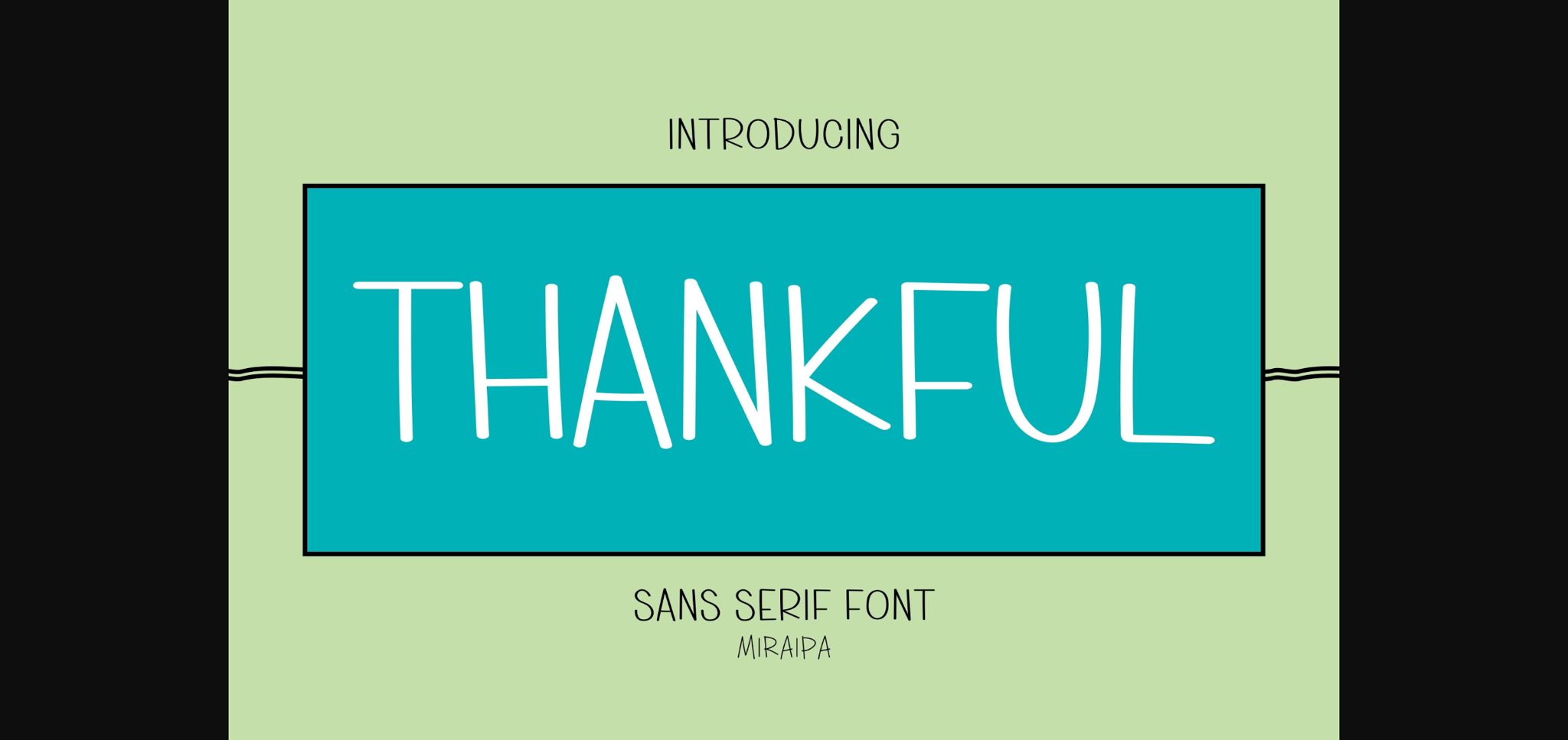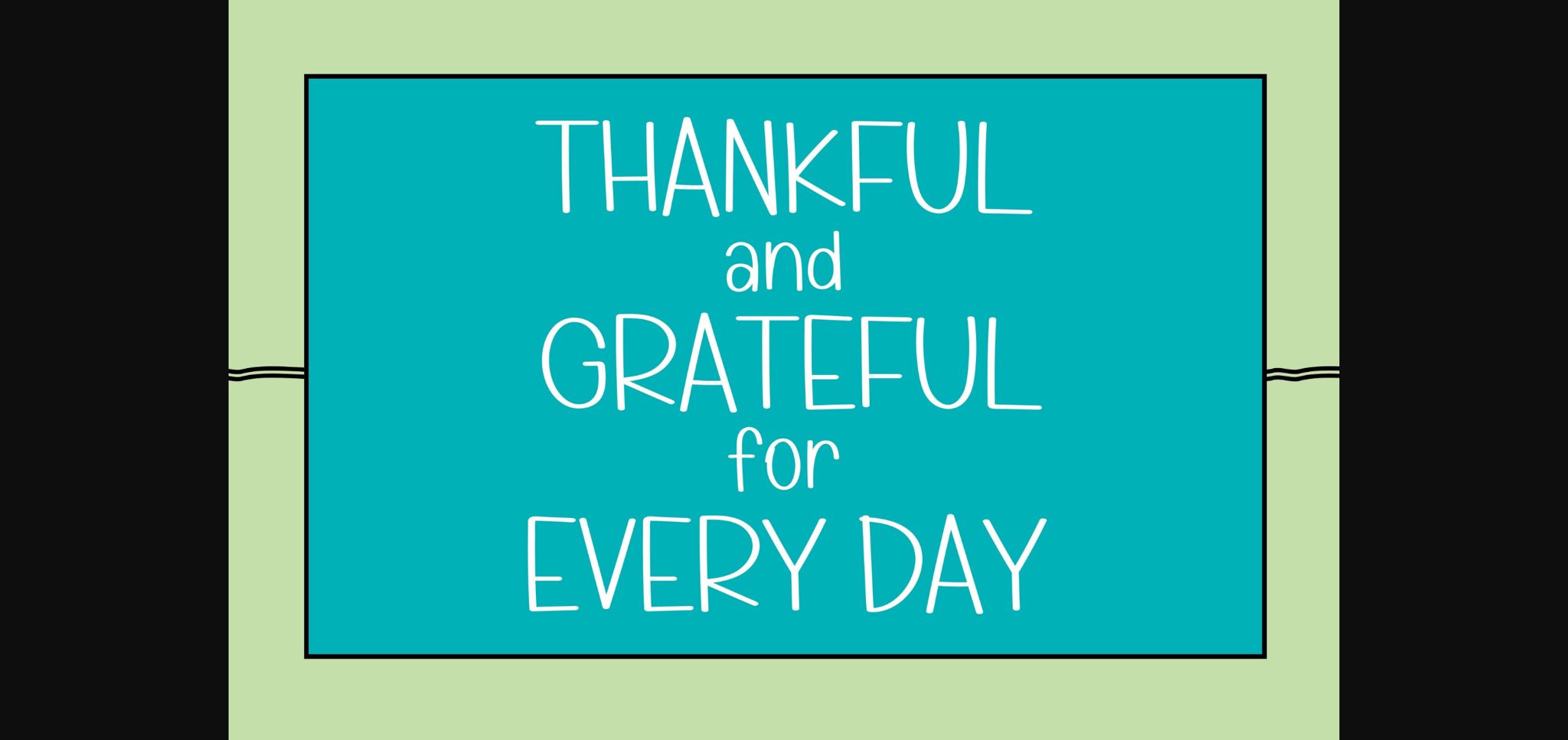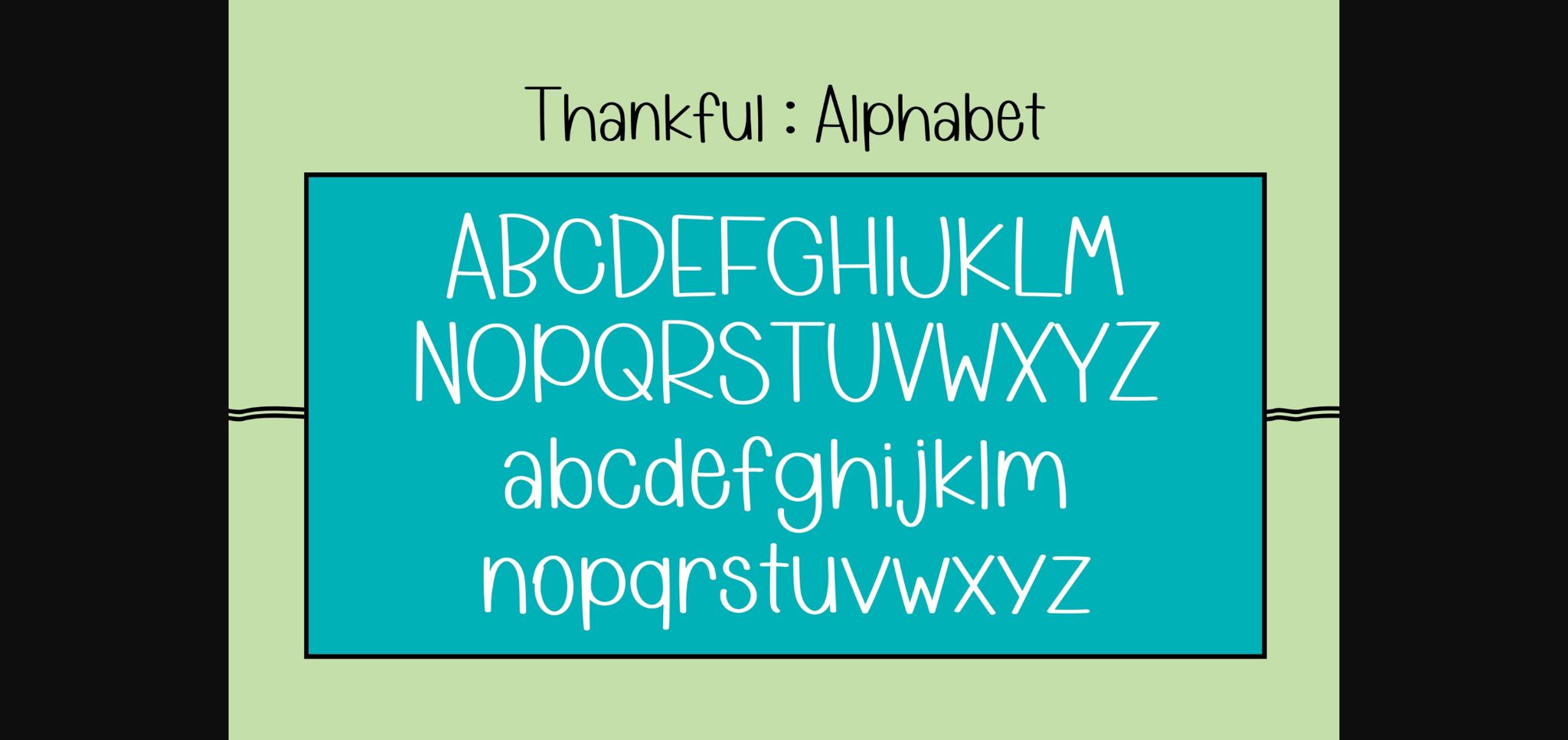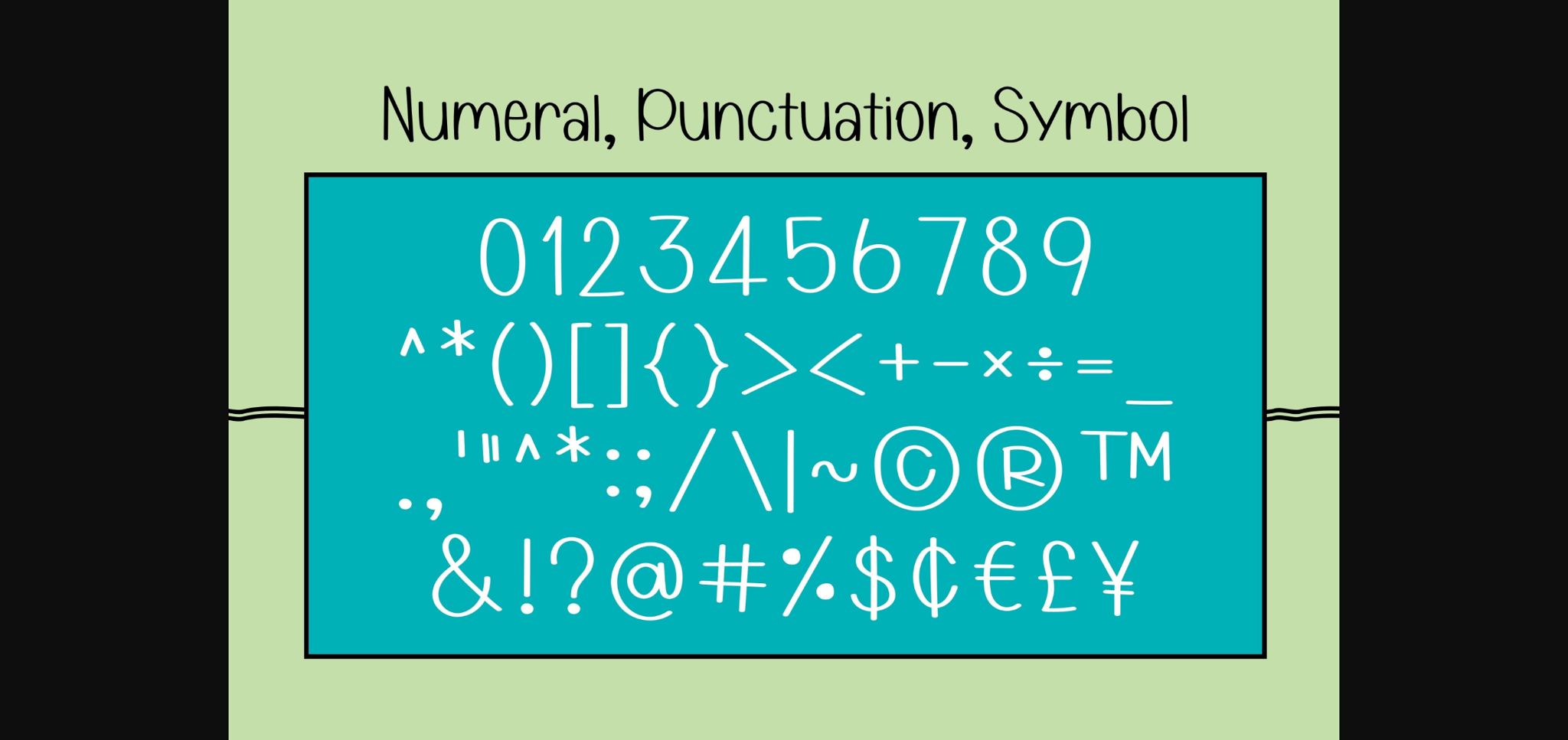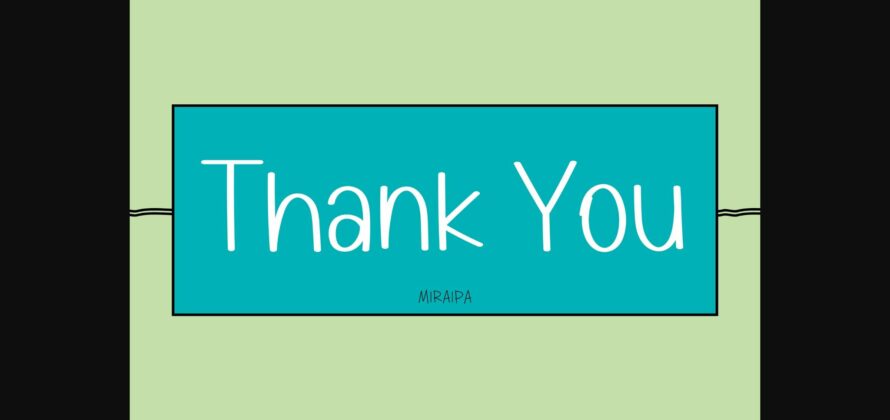
Thankful Font
About Thankful Font
Thankful is designed in a friendly and cute Sans serif style. It would be awesome for your diary planner. It is also great for other projects such as back to school, weddings, party decorations, invitations, Fall, Halloween, Christmas, posters, blogs, clothing, child-related designs, greeting cards, social media posts, or anything that needs a friendly touch. Add it now to your fonts library, and it will bring any of your DIY projects to life.